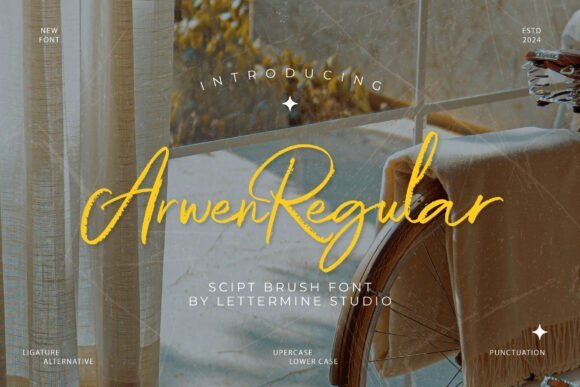
The Power of Handwritten Touch
Have you ever been in a creative flow, surrounded by paper, pens, and endless ideas? You’re scribbling down words, experimenting with letterforms, and bringing your imagination to life. That’s exactly the moment when you’ll appreciate the unique charm of a handwritten font. For designers, finding the right tool to convey this personal touch can be a game-changer.
Enter the Arwen Font, a stunning brush script font that captures the essence of handwritten letters. With its natural flow and artistic spontaneity, this font adds a dynamic and personal touch to your designs, blending structure and style in perfect harmony. Whether you’re working on a branding project, creating a wedding invitation, or designing a logo, the Arwen Font is an invaluable asset that will elevate your work to the next level.
Arwen Font Key Features
- Font Family: Arwen is a fantasy font, ideal for creating a mystical or medieval atmosphere in designs.
- Unique Characteristics: Arwen font features intricate, hand-drawn letterforms, and a distinctive, cursive script, adding a touch of elegance to designs.
Arwen Font Review
Arwen Font is a beautiful, elegant script font that exudes a sense of luxury and sophistication. ✨ Its flowing lines and subtle flair make it perfect for creating a romantic or whimsical atmosphere in your designs. I love how it can add a touch of magic to any project.
One of the standout features of Arwen Font is its wide range of language support, making it a great choice for multilingual projects. ✨ Additionally, the font is highly legible, even at small font sizes, which is a major plus for designers who need to work with tight constraints.
- ⚠️ The font may not be suitable for projects that require a bold, modern look, as it can come across as too whimsical or cursive.
- ⚠️ Some users may find the font’s flourishes distracting or overly ornate, which can be a drawback in certain design contexts.
Overall, I think Arwen Font is a wonderful addition to any designer’s toolkit. While it may not be the best choice for every project, it’s certainly a great option for those looking to add a touch of elegance and sophistication to their designs. ✨
The Arwen font is a beautiful, elegant font that is perfect for use in creative and artistic designs. Some common use cases include:
- Book covers and publishing materials
- Marketing materials and branding
Remember to use the Arwen font in moderation, as it can be quite ornate and may overpower other design elements. Experiment